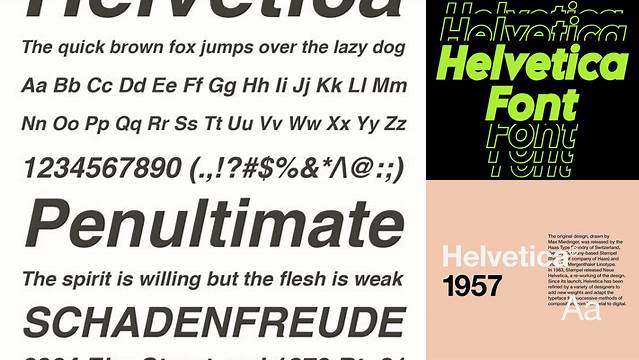
Helvetica Font: Where To Find It & Alternatives
Hey guys! Are you on the hunt for the Helvetica font free online? You've come to the right place! This comprehensive guide will walk you through everything you need to know about getting your hands on this iconic typeface without spending a dime. We'll explore where to find it, how to use it, and even some cool alternatives if you're feeling adventurous. So, buckle up and let's dive into the world of Helvetica font free online!
H2: Understanding the Allure of Helvetica
Alright, before we jump into the nitty-gritty of finding Helvetica font free online, let's chat about why this font is so darn popular. Helvetica is a sans-serif typeface that was designed way back in 1957 by Swiss designers Max Miedinger and Eduard Hoffmann. But trust me, guys, it's not just an old font; it's a design legend! Its clean, neutral appearance makes it incredibly versatile, and that's why it's been a go-to choice for countless brands and designers over the decades. Think about it: you see Helvetica everywhere, from the logos of big companies like American Airlines and Jeep to everyday signage and websites. Its popularity stems from its readability and its ability to convey a sense of clarity and modernity. The font family comes in a variety of weights and styles, so you can really dial in the perfect look for your project. Whether you're working on a logo, a website, a print ad, or just a personal project, Helvetica is a solid choice. Now, because of its widespread use and historical importance, there are plenty of resources about this font. Itâs a real classic and a must-know for any designer or anyone that loves fonts. Knowing the backstory can also help you understand how to find the best resources for your work.
So, when you're looking for Helvetica font free online, remember that you're not just getting a font; you're getting a piece of design history! Its legacy has kept it in popular use because it is so versatile. This is why itâs so important that you understand its impact and how to utilize it in your work.
H3: Font Squirrel: A Curated Collection of Free Fonts
Another super reliable place to find alternatives to Helvetica font free online is Font Squirrel. Font Squirrel is known for its careful curation of high-quality, free fonts. They've done the hard work of finding fonts that you can use without worrying about breaking any copyright laws. What sets Font Squirrel apart is their commitment to licensing. Each font comes with a clearly stated license, so you know exactly how you can use it. They have a wide variety of sans-serif fonts, which means that you can easily find a great substitute for Helvetica. The website itself is also really user-friendly, which makes it easy to browse and discover new fonts. You can quickly check out the different font styles, weights, and even test them out. Font Squirrel also offers font identification, which means that if you see a font you like but don't know the name, you can upload an image and they will try to identify it for you. Always check the license before you download or use any font from Font Squirrel, this is crucial, as it determines how you can use the font. Font Squirrel is really a great resource if you want to explore alternatives to Helvetica font free online.
H3: DaFont: Navigating the Vast Library (With Caution)
DaFont is another popular website where you might find something that resembles Helvetica font free online. It's a huge library with a massive collection of fonts, including many sans-serif options. While the site is packed with options, it's super important to be careful and cautious when using it. DaFont is a platform where designers can upload their fonts, and the licensing can vary greatly. Unlike sites like Google Fonts or Font Squirrel, DaFont doesn't always thoroughly vet the licensing of each font. This means that it is crucial to carefully review the license agreement before you download or use any font from DaFont. Make sure that you are clear about how you're allowed to use the font, and if it is allowed to be used for commercial purposes.